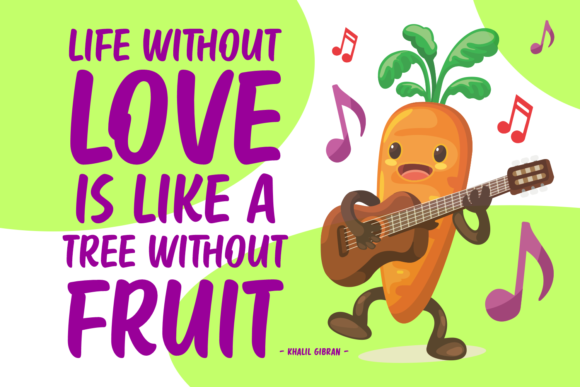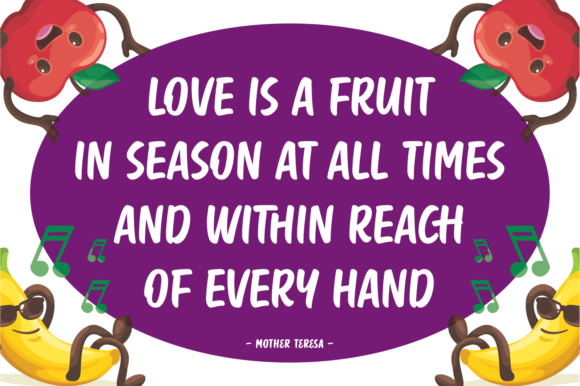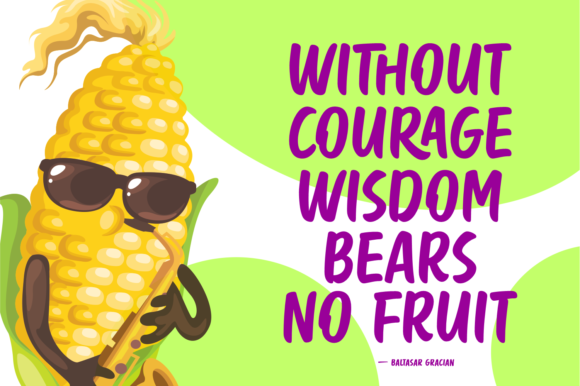
Fruitasy Kitchen Font
About Fruitasy Kitchen Font
Fruitasy Kitchen is a jolly handwritten font carefully created with a touch of elegance. This is a beautiful combination of timeless elegance and authentic calligraphy. It features an incredibly classic style, while still keeping a friendly feel. Fruitasy Kitchen is the perfect font for making original and outstanding designs.